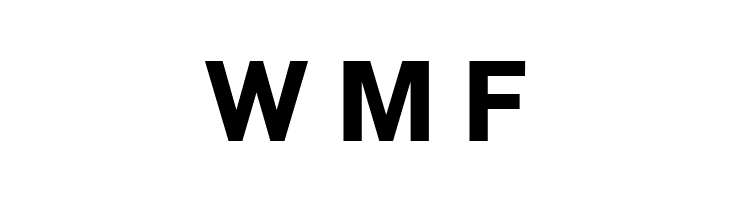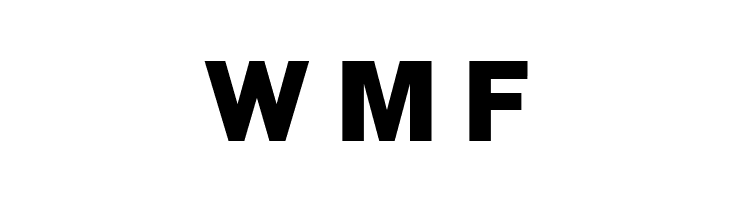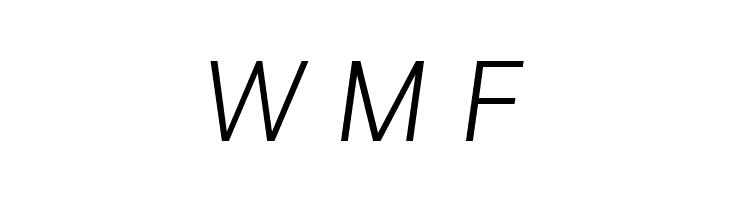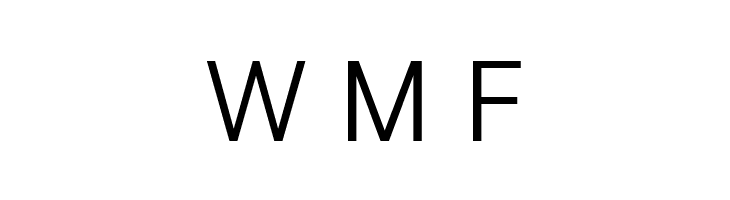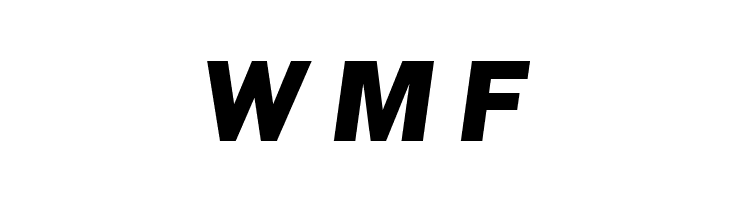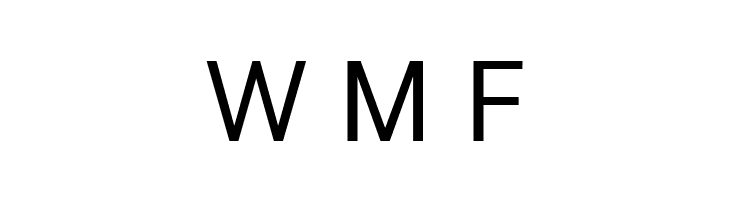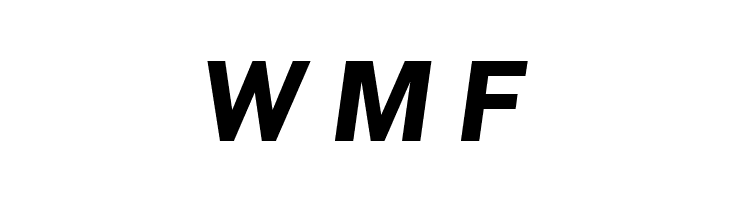
A bold, modern font with strong, thick strokes and excellent readability.
A bold, impactful typeface with uniform strokes and strong presence.
A bold, geometric sans-serif typeface with strong, uniform strokes.
A sleek, modern extra light italic font with elegant slanted characters.
A clean, modern sans-serif typeface with uniform strokes and balanced spacing.
A bold, italicized font with a strong, dynamic presence.
A modern, extra light sans-serif font with clean lines and low contrast.
A modern, clean sans-serif font with balanced spacing and consistent stroke width.
A modern sans-serif font with clean lines and balanced proportions.
Bold, italicized font with a modern and dynamic style.